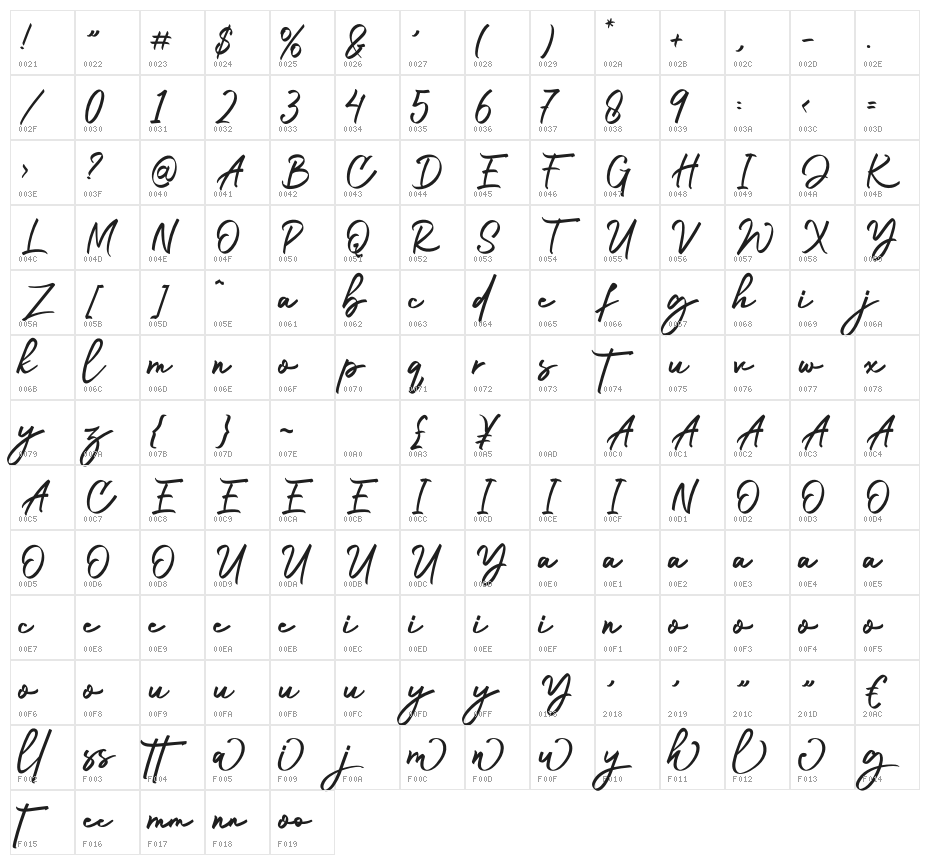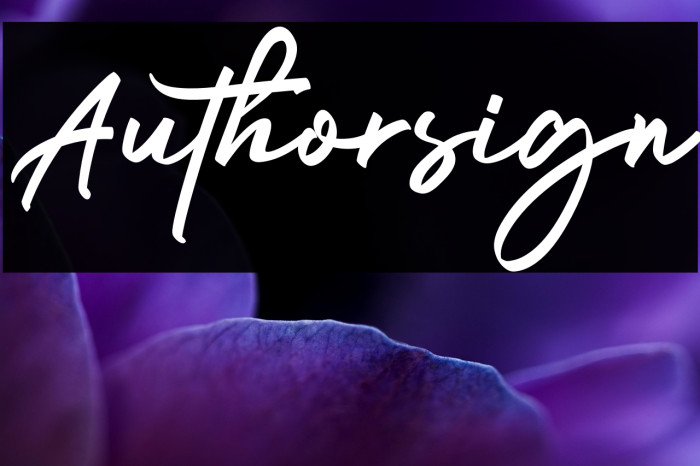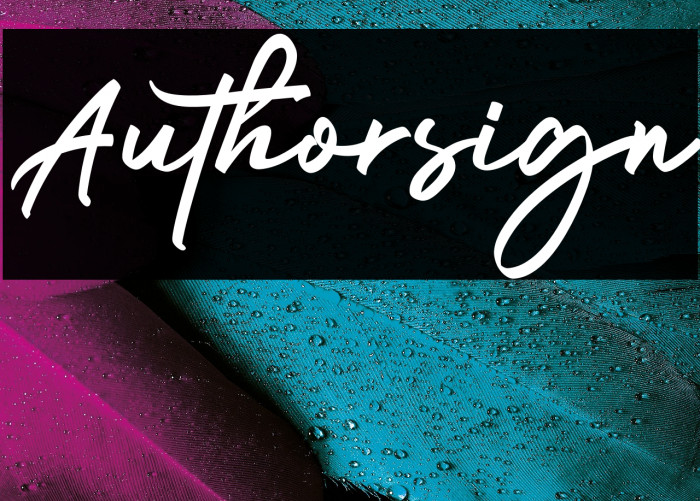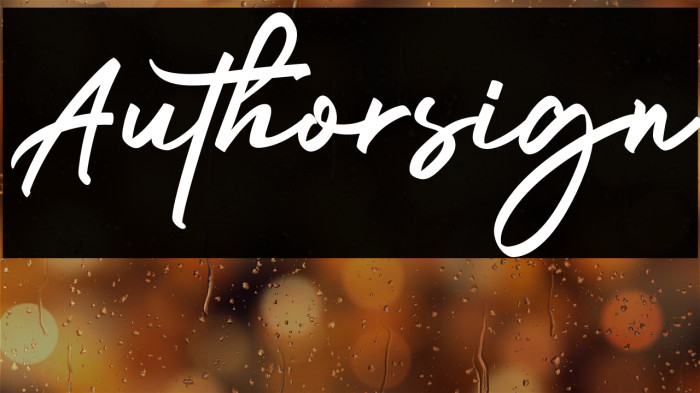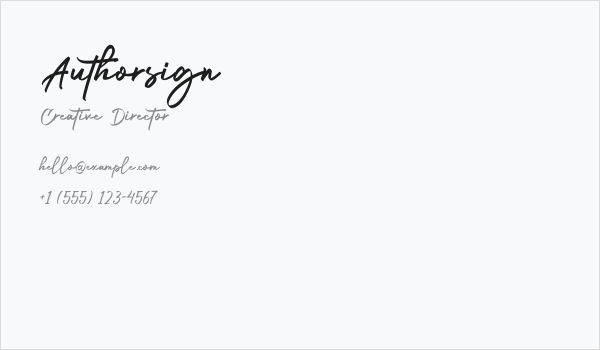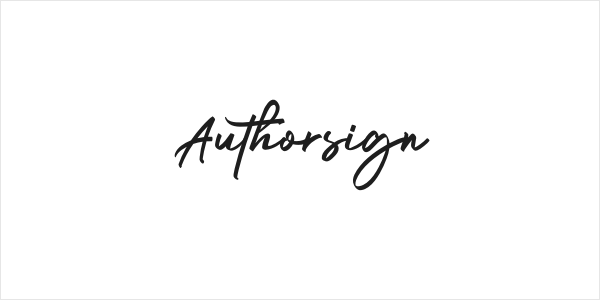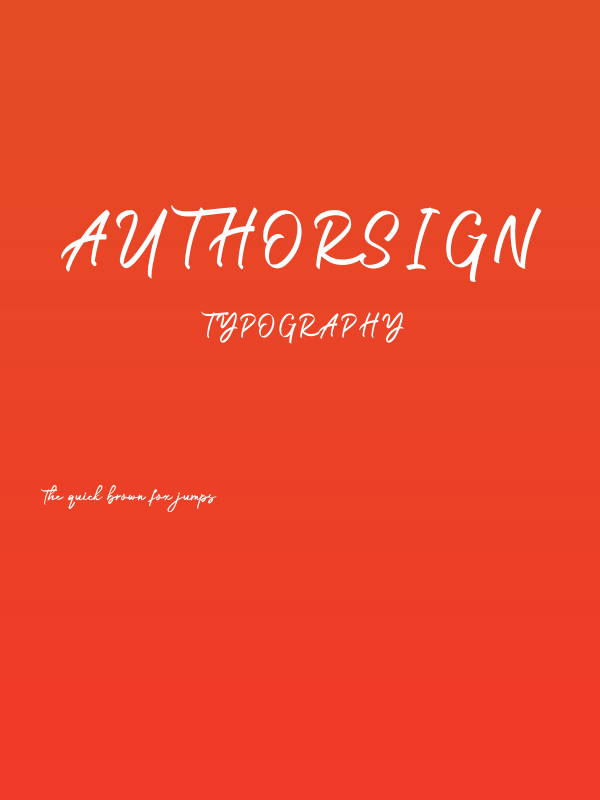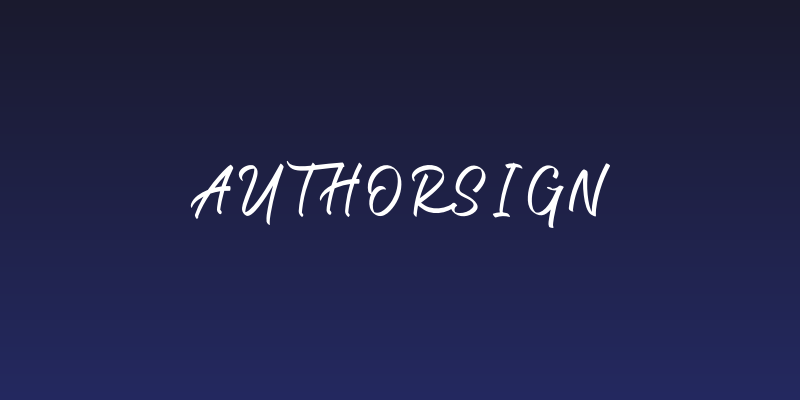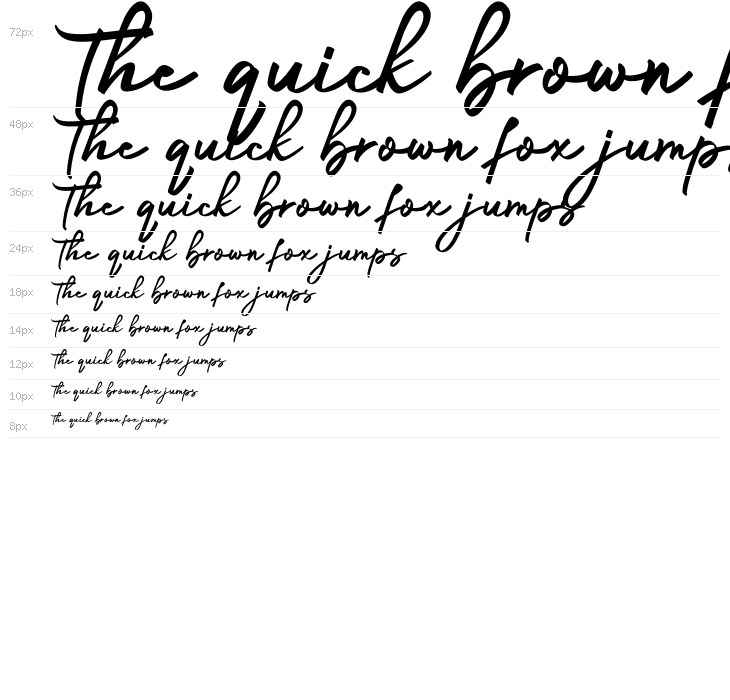
Authorsign Font
Authorsign Description
This font showcases a dynamic and fluid handwritten style, characterized by its elegant and flowing script. The uppercase letters are bold and slightly slanted, giving a sense of movement and grace. The lowercase letters maintain a consistent flow, with some letters featuring distinctive loops and curves that add to the overall aesthetic. The numerals are clear and legible, maintaining the same handwritten style, while the special characters blend seamlessly into the design. This font exudes a personal and artistic touch, making it ideal for projects that require a human and creative feel.
| Use Case | Logos, Headlines, Invitations |
| Proposed Projects | Ideal for wedding invitations, personal branding, greeting cards, and artistic projects. |